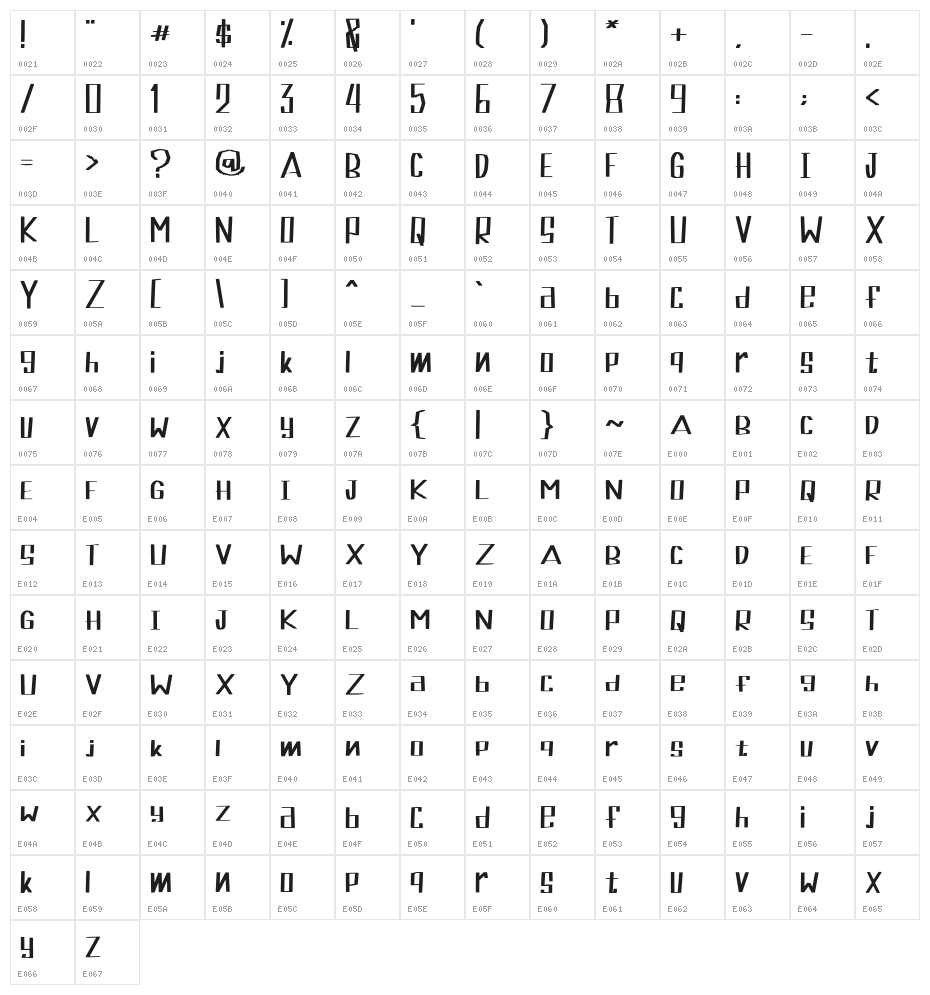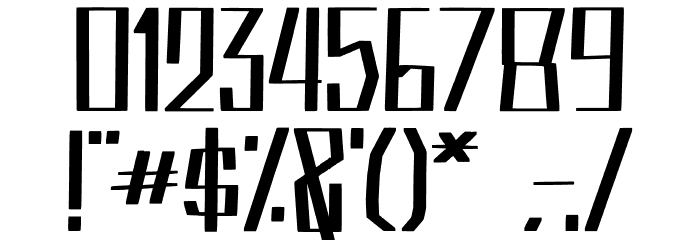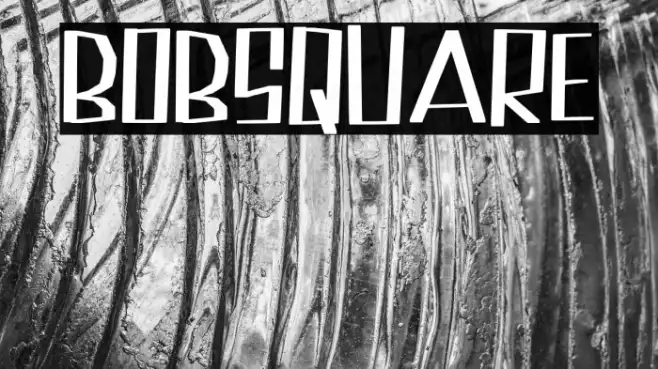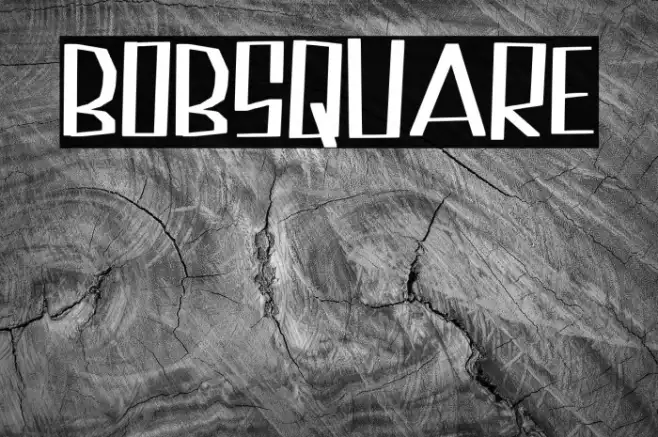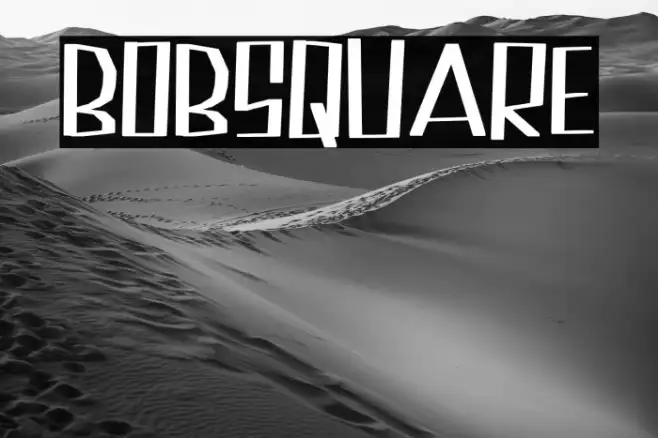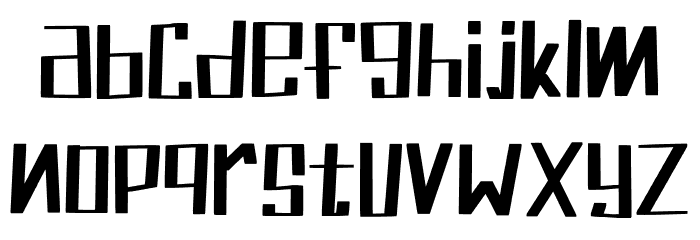
BOBSQUARE Font
BOBSQUARE Description
This font features a bold and angular design with a distinct geometric style. The characters are constructed with sharp edges and straight lines, giving them a modern and edgy appearance. The uppercase and lowercase letters maintain a consistent height, contributing to a uniform look. The numerals and special characters follow the same angular theme, ensuring cohesion across all elements. The font's unique style makes it stand out, offering a contemporary and artistic vibe suitable for creative projects.
| Proposed Projects | Ideal for branding, posters, album covers, and modern art projects. |